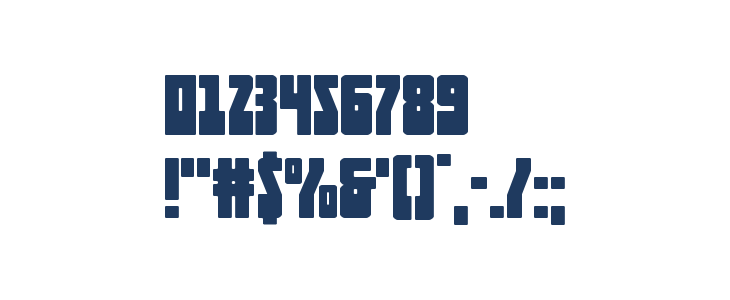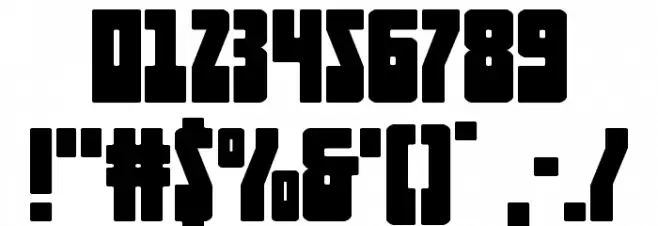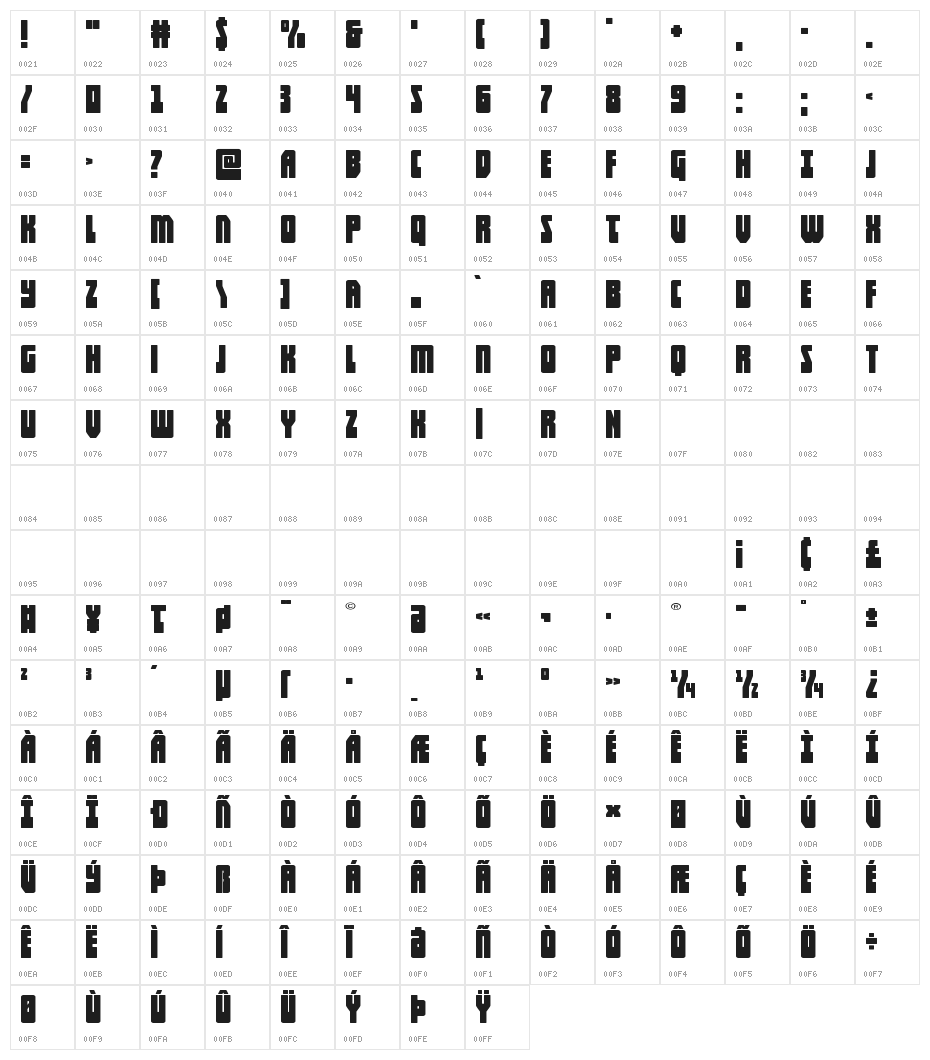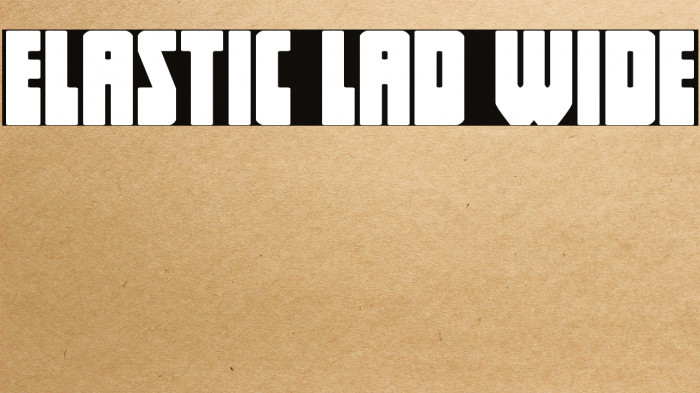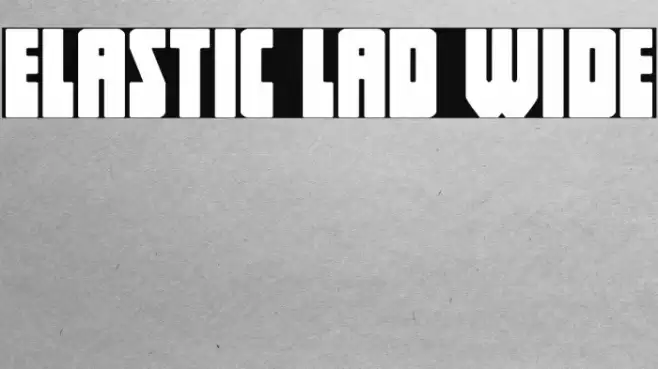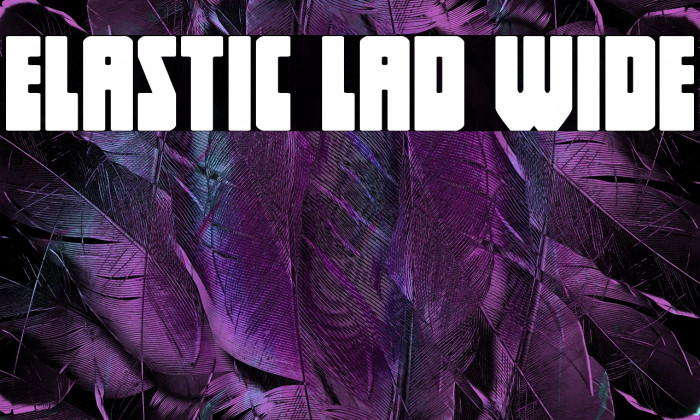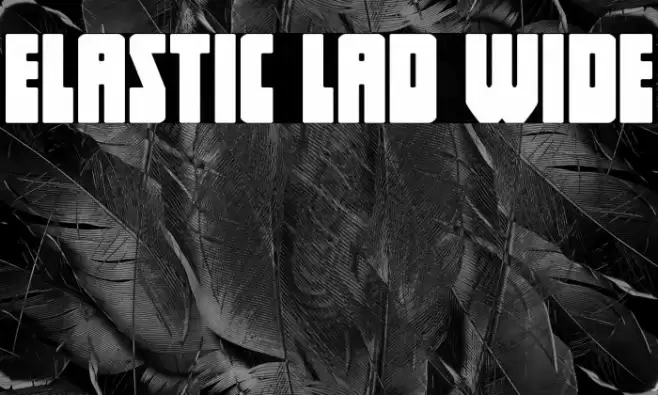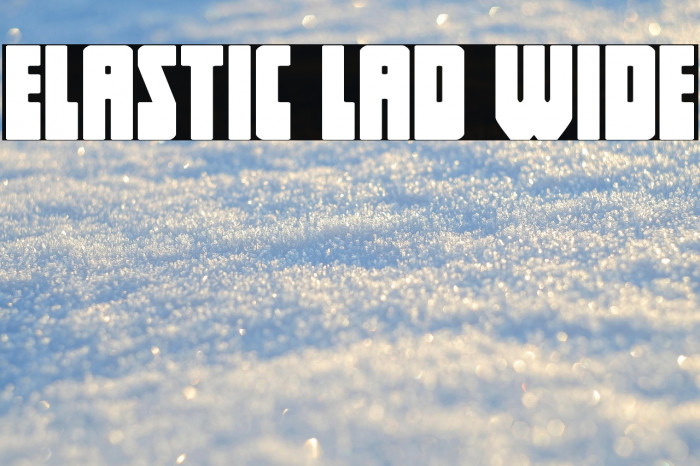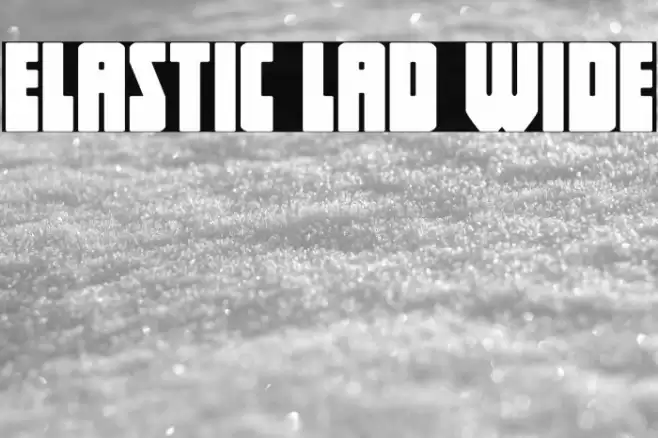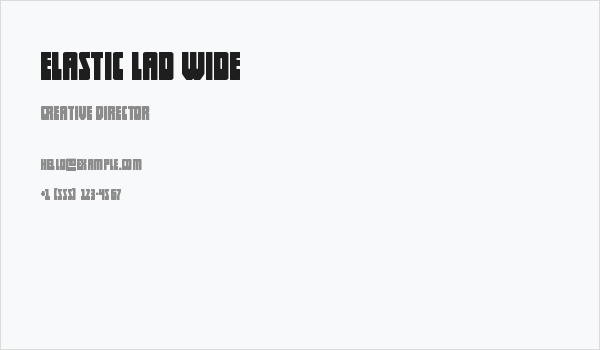
Elastic Lad Wide Font
Elastic Lad Wide Description
This font features bold, block-like characters with a distinctly wide stance, giving it a strong and impactful presence. The letters are uniformly thick, creating a sense of stability and robustness. The geometric shapes and sharp angles contribute to a modern and industrial aesthetic. The uppercase and lowercase letters are consistent in style, maintaining a cohesive look across the alphabet. The numerals and special characters follow the same design principles, ensuring uniformity throughout. This font is ideal for making bold statements and capturing attention.
| Proposed Projects | Perfect for headlines, posters, branding, and any project requiring a strong visual impact. |